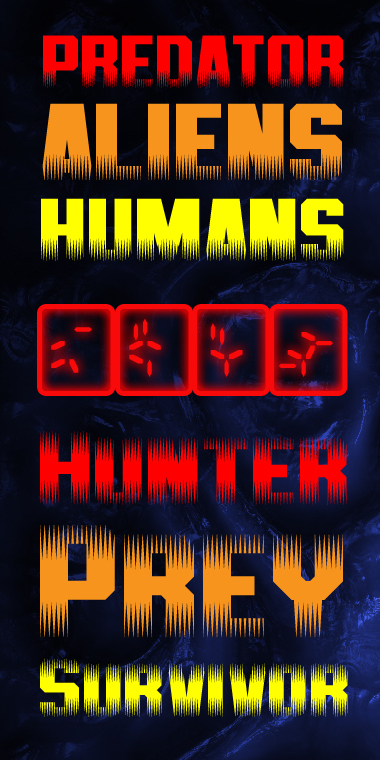
da bomb, dude.
Congratulations! FontStruct Staff have deemed your FontStruction worthy of special mention. “Predatoric 2” is now a Top Pick.
The serrated top and bottom look like fading gray at PXL view. Nice addition to the first version. I very much like the alien countdown sequence. 10/10
Even better than Predatoric - well worth the effort :) 10/10
Really cool. This would make great text for horror/action movie titles. Like what you did up there.